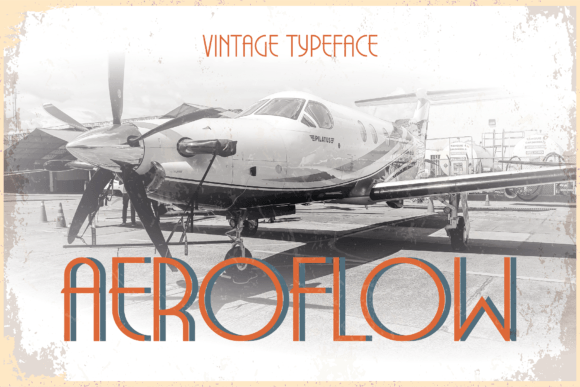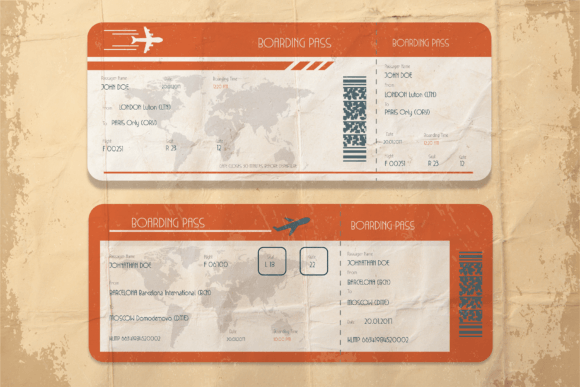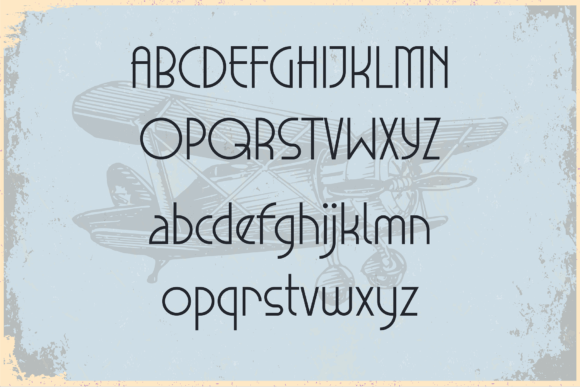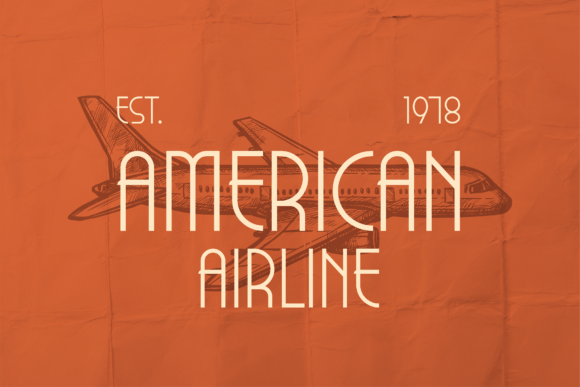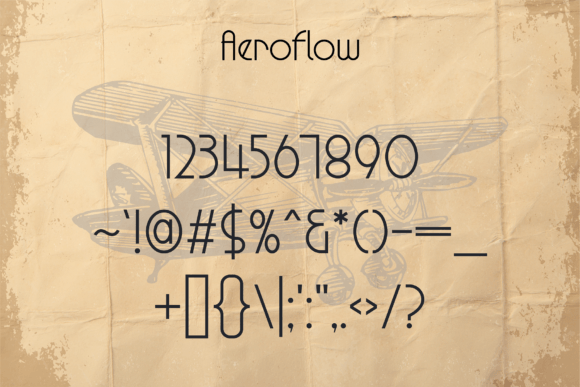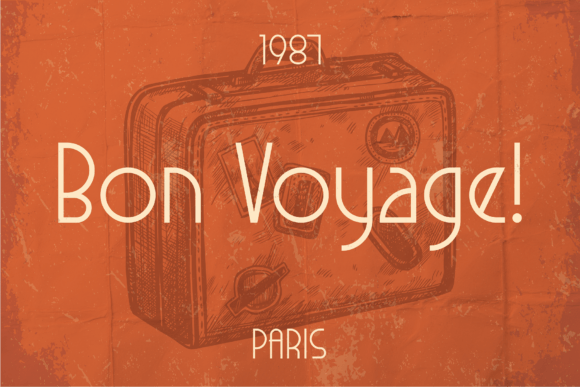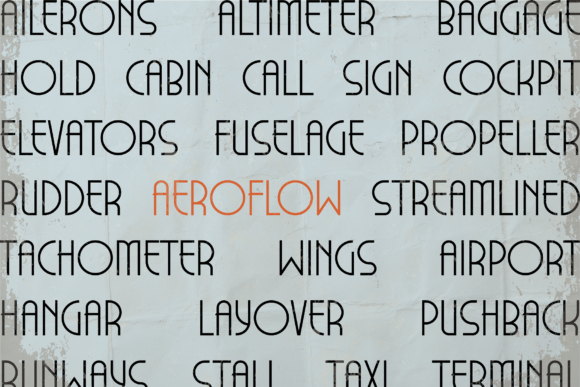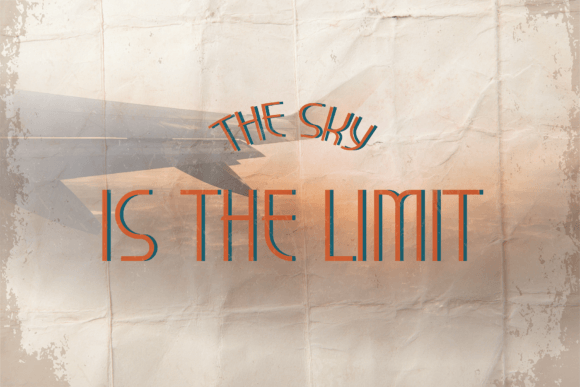
Aeroflow Font
Aeroflow is a mid-century airplane-inspired typeface. This font is great for a variety of applications such as logos, posters, headlines, magazines, packaging, signage, advertising, and more. Aeroflow’s robust character will make your designs stand out while giving off nostalgic vibes. Be sure to check out the preview photos to get a feeling of what this font offers.